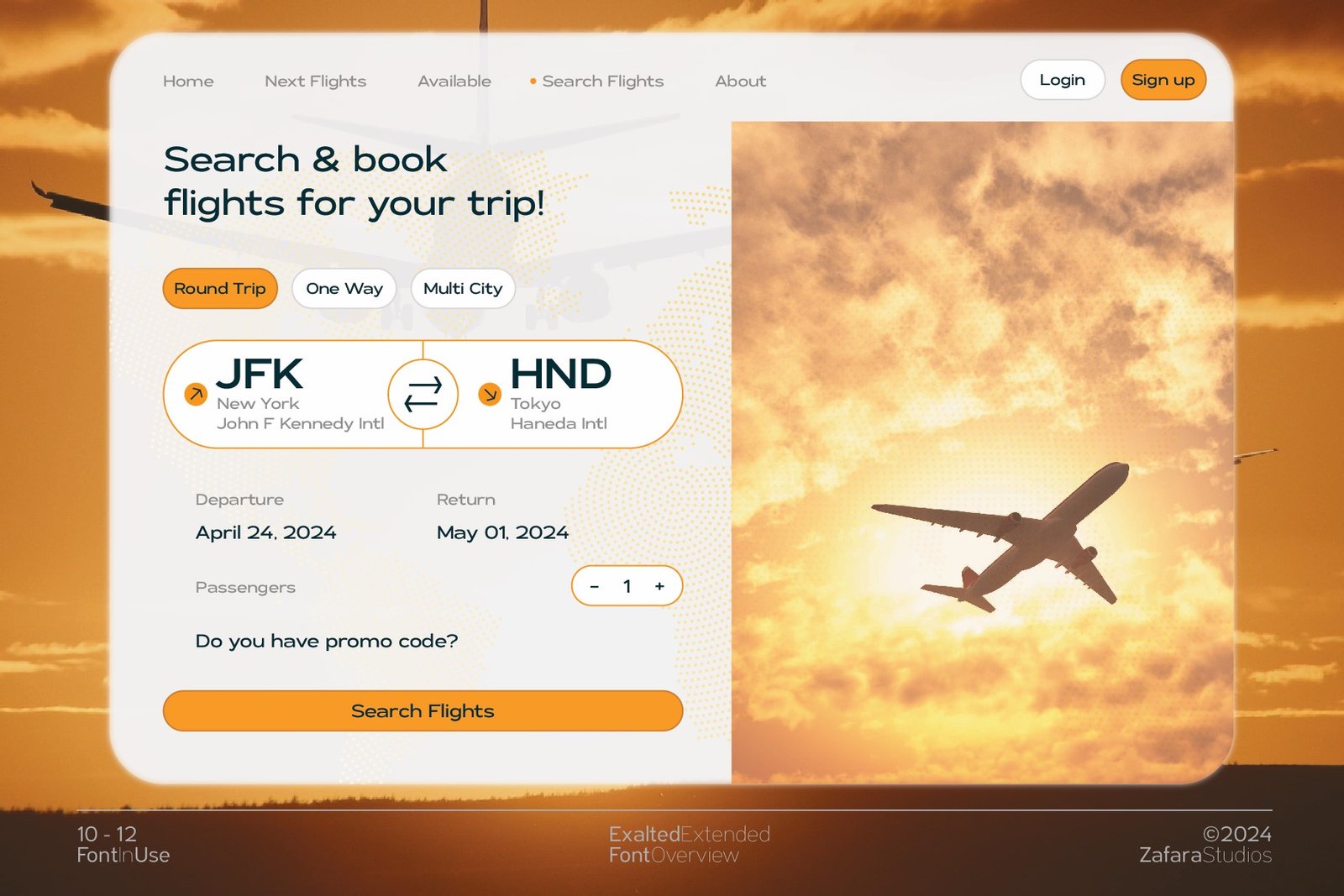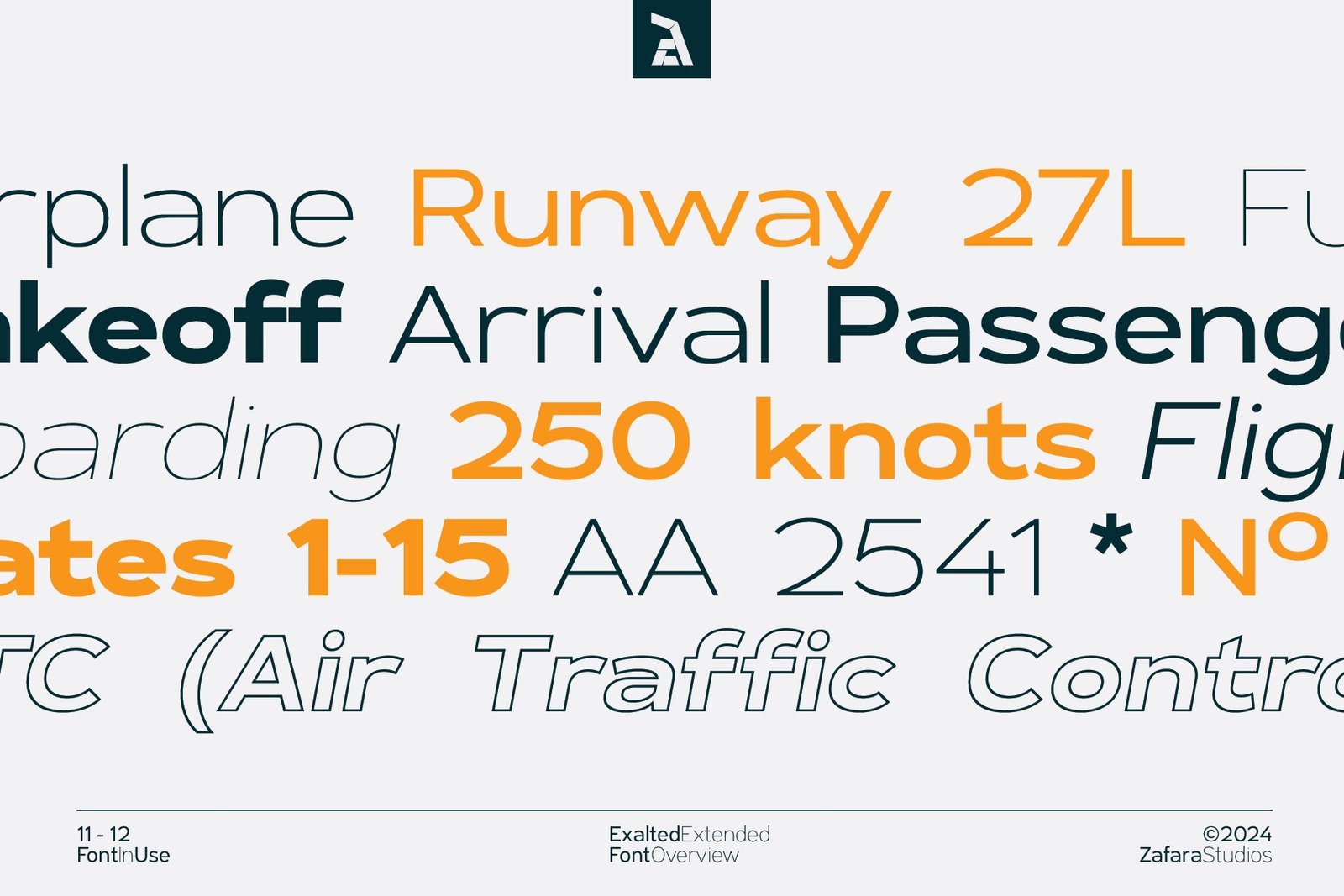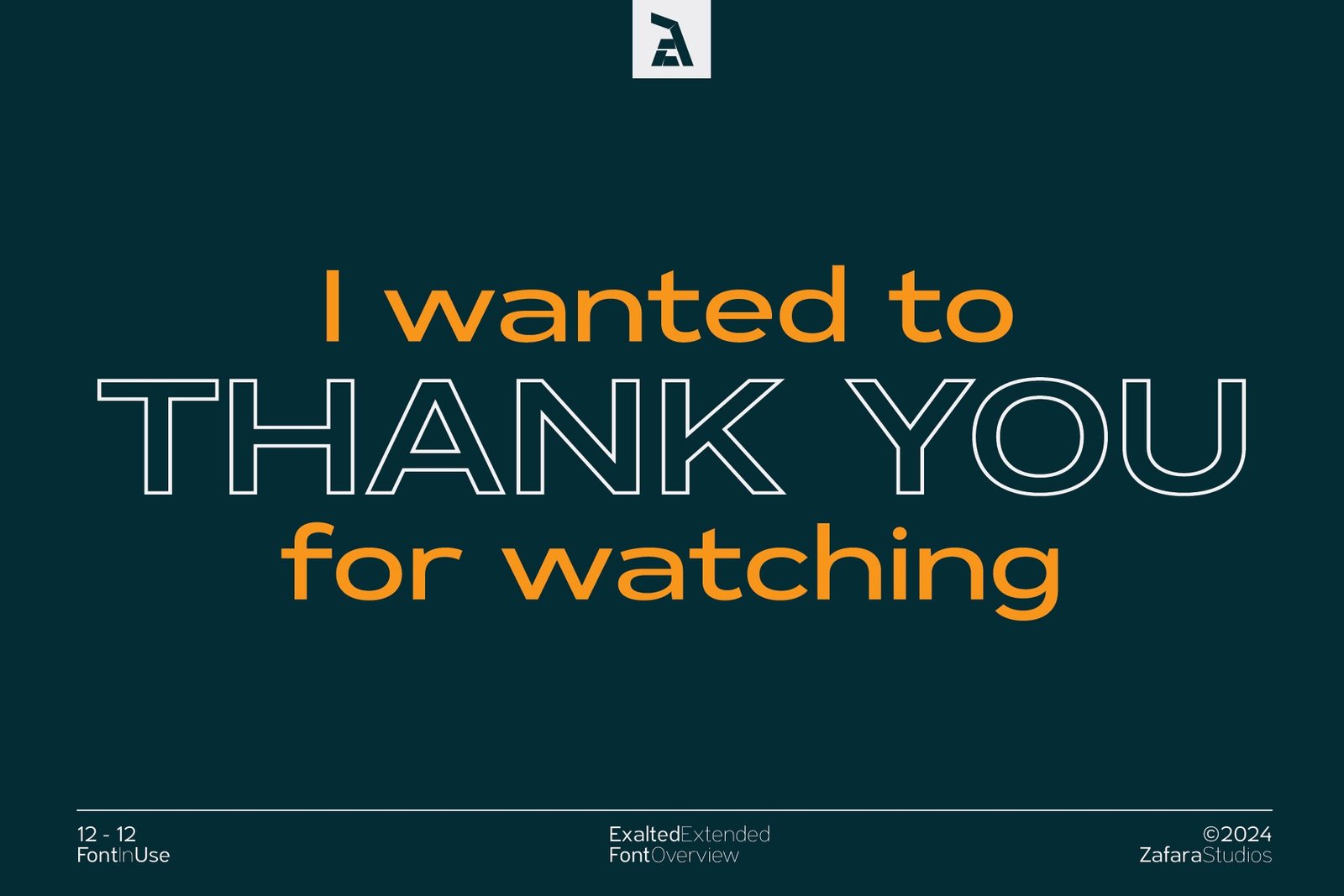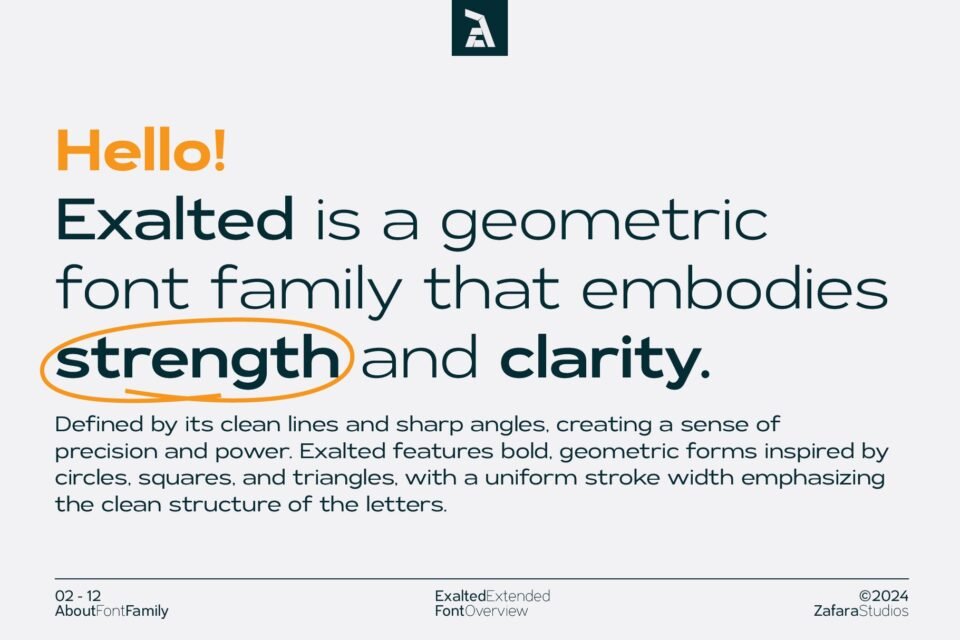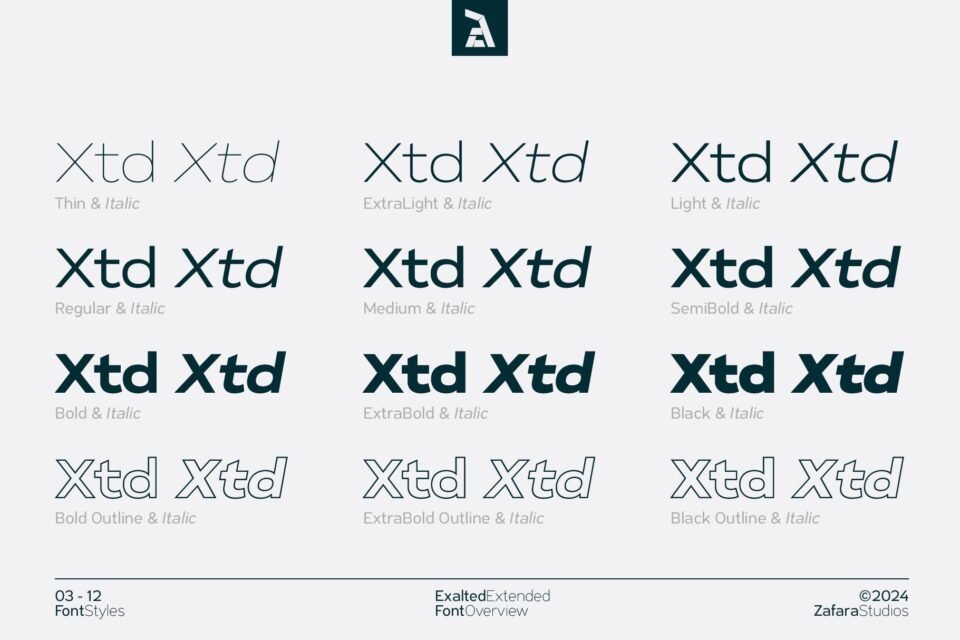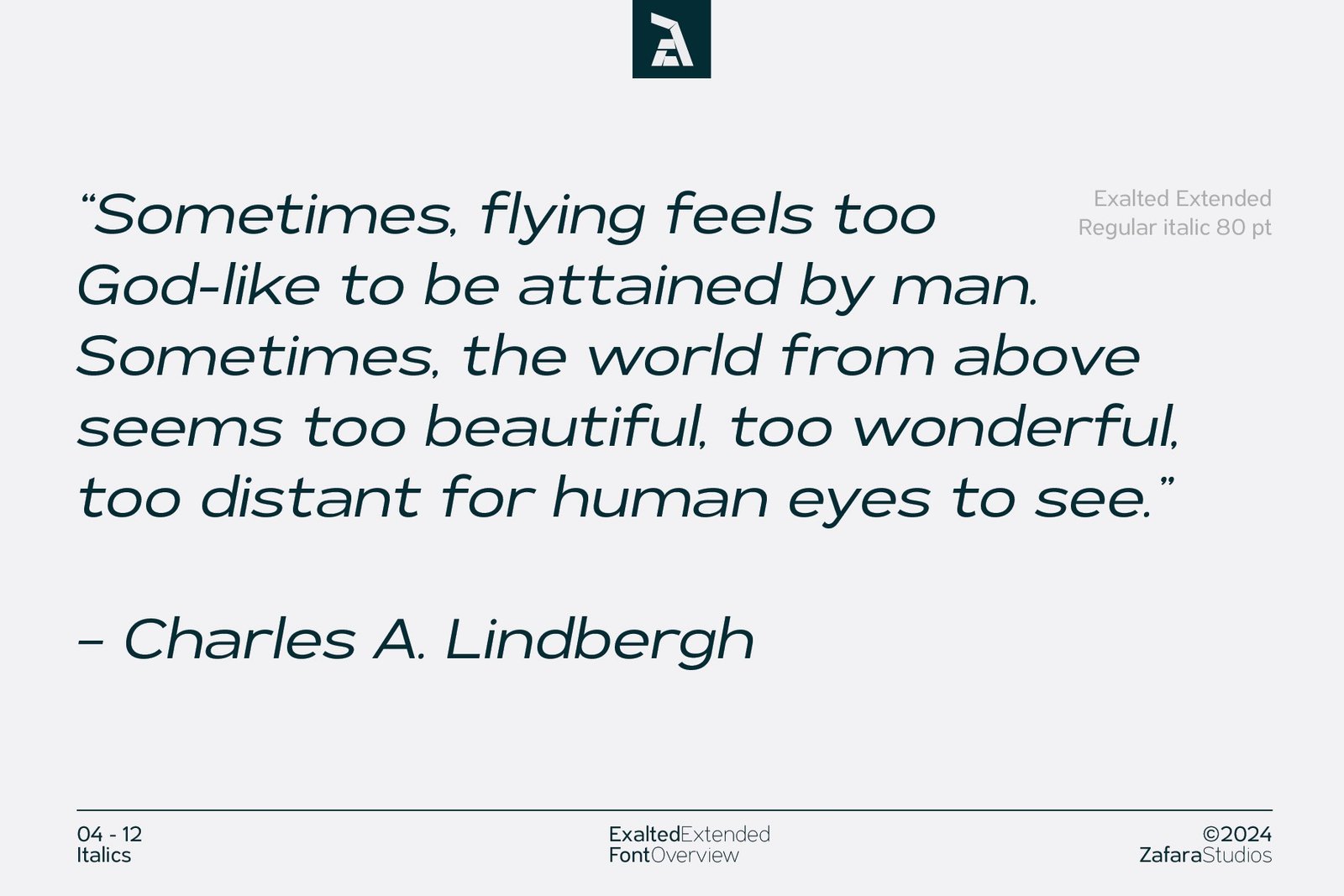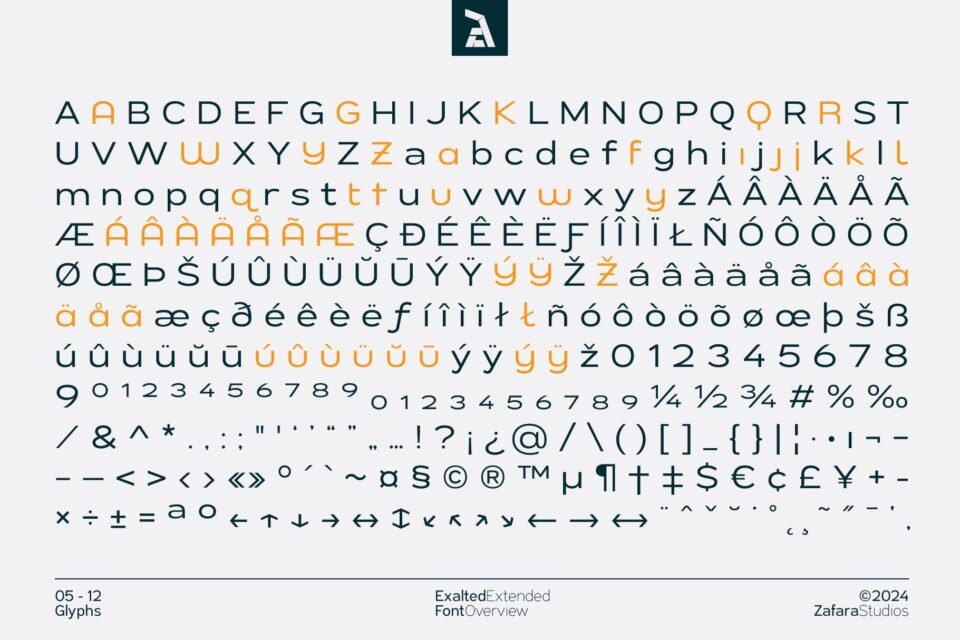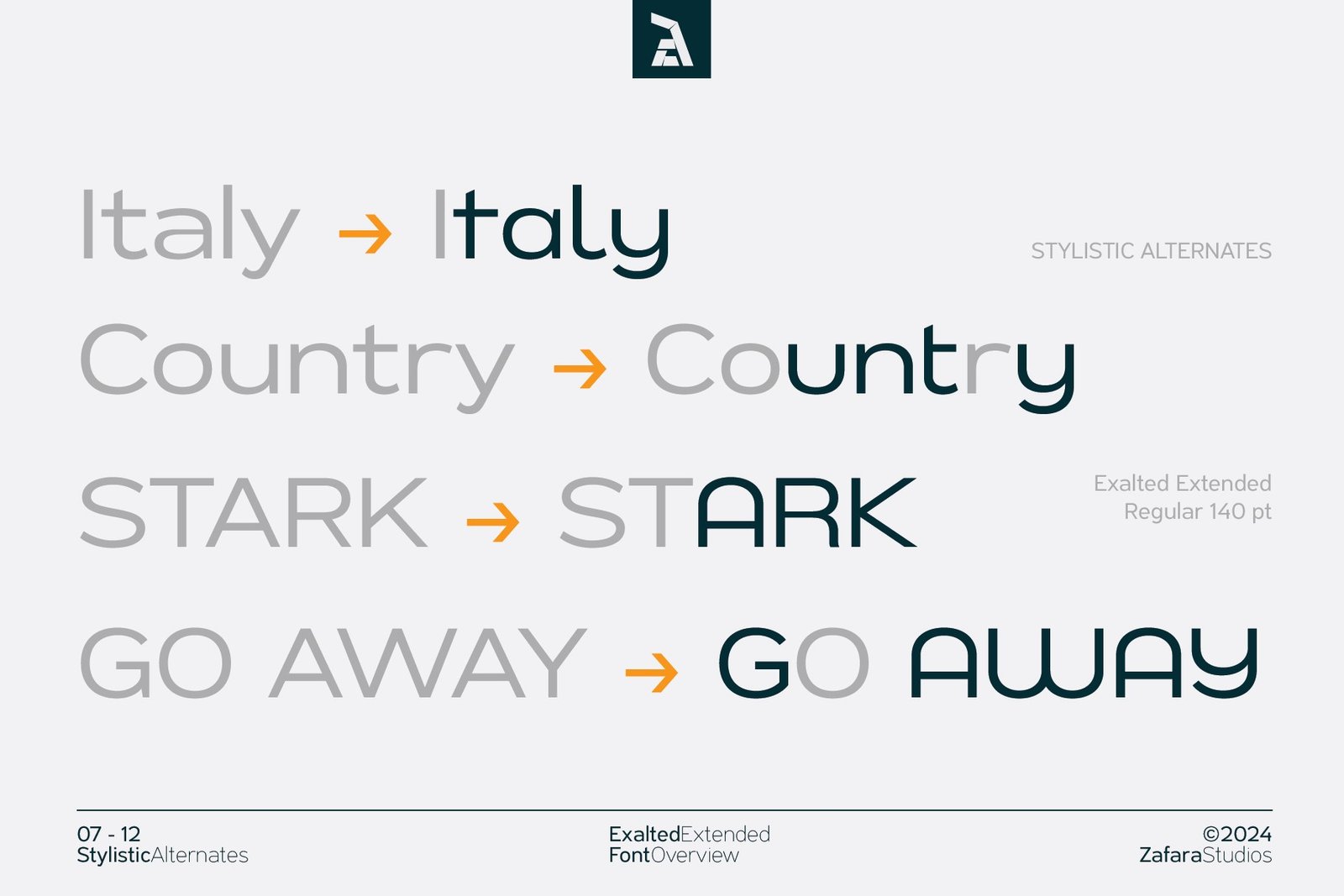
The main cover for the Exalted Extended font, showing the name "Exalted Extended" in white on a dark blue-green background, highlighting its 18 fonts and 6 outlines.
A slide explaining that Exalted Extended is a geometric font family embodying "strength and clarity," with the word "strength" circled.
A visual grid displaying all 18 font styles of the Exalted Extended typeface, including various weights from Thin to Black, with their corresponding italic and outline versions.
A quote from Charles A. Lindbergh is displayed using the Exalted Extended Regular Italic font, showcasing its readability and elegant slant.
A detailed view of the complete glyph set for the Exalted Extended font, including all characters, numbers, symbols, and multilingual support.
The word "HEADLINES" is displayed in the Bold Outline, ExtraBold Outline, and Black Outline styles of the Exalted Extended font, with a solid version highlighted.
A comparison of standard and stylistic alternate characters in the Exalted Extended font, showing variations for letters in words like "Italy" and "Country."
A mock-up magazine article from "FLIGHTMAGZ" using the Exalted Extended font for its headlines and body text to showcase its print-friendly nature.
A travel poster with the headline "YOUR GATEWAY to ADVENTURE" set in Exalted Extended, with different styles layered over an airport photo.
A modern flight booking website UI mockup using the Exalted Extended font for headings, buttons, and text fields.
A display of aviation-related words like "Takeoff," "Passenger," and "Gates 1-15" using various weights of the Exalted Extended font.